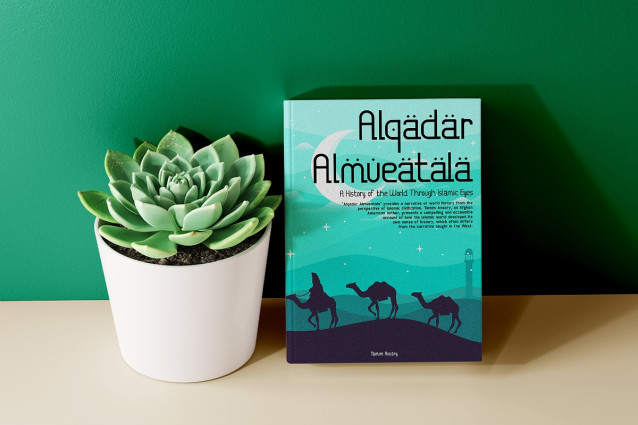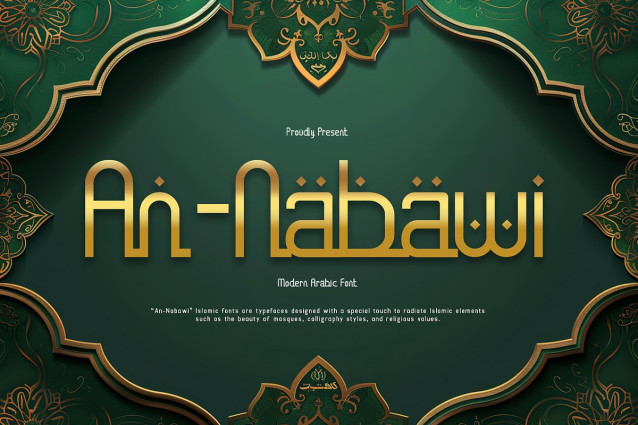
An-Nabawi Font
An-Nabawi Font is a beautifully crafted modern Arabic font that seamlessly blends traditional calligraphy with contemporary aesthetics. Its smooth curves, balanced proportions, and elegant flow make it perfect for a variety of projects, such as branding, posters, invitations, editorial layouts, and product packaging. This font offers both beauty and functionality, ensuring your text remains visually striking and readable.